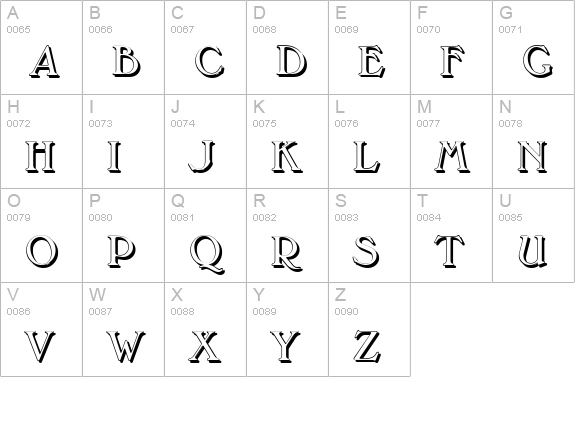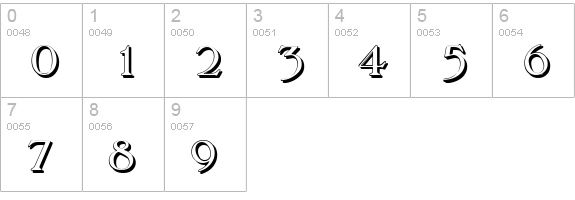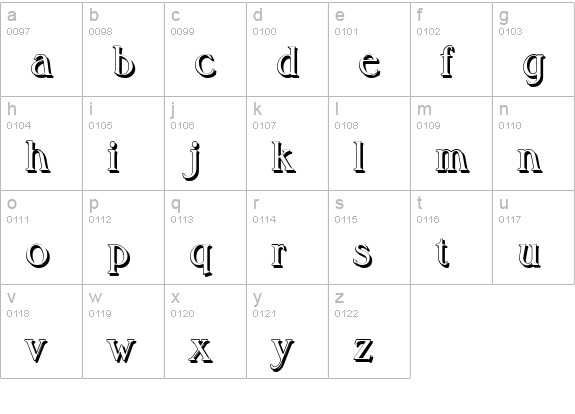
MelbourneShadow-Regular is the standard, neutral variant in the MelbourneShadow typeface family \xE2\x80\x94 well suited to general body text, paragraphs, and standard typographic work.
MelbourneShadow-Regular is a sophisticated and elegant font that exudes a sense of mystery and intrigue. Its shadow effect adds depth and drama to any design, making it perfect for titles, headlines, and branding projects. The sleek and modern design of MelbourneShadow-Regular makes it versatile and suitable for a wide range of applications. This font is available for free download at FontsMarket.com, where you can access a vast collection of high-quality fonts to elevate your creative projects. Whether you're designing for print or digital media, MelbourneShadow-Regular is sure to make a bold statement and captivate your audience. Download this stunning font today and unleash your creativity with MelbourneShadow-Regular.